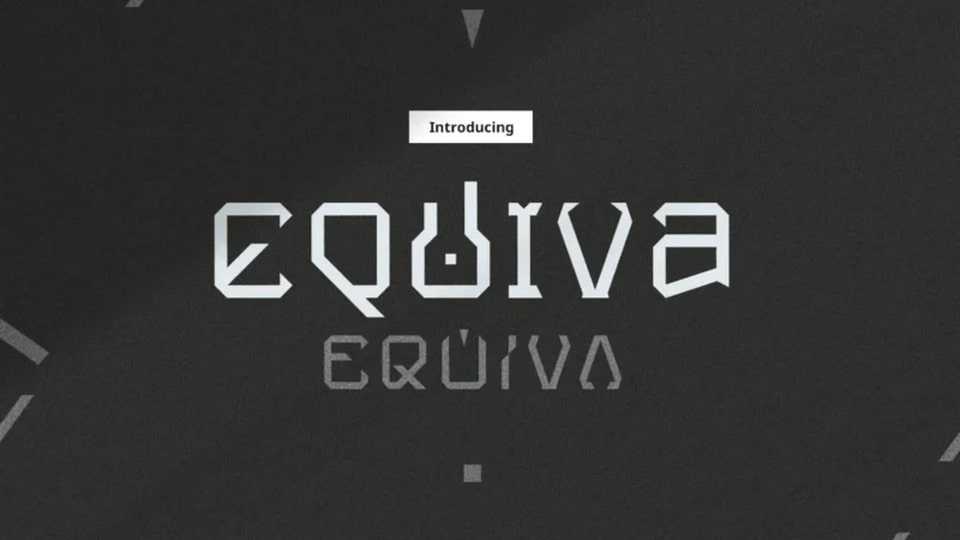
Download Equiva font, a cutting-edge typeface that exudes modernity and sophistication. Crafted with precision, Equiva’s sleek design features razor-sharp edges that convey a sense of innovation and forward-thinking.